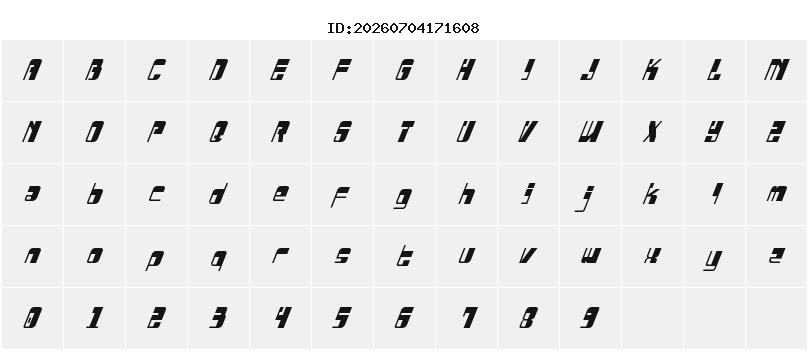
• Font Name: Drosselmeyer Condensed Italic
• Font Style: Condensed Italic
• Full Font Name: Drosselmeyer Condensed Italic
About Drosselmeyer Condensed Italic.ttf
Drosselmeyer Condensed Italic.ttf is a modern, elegant sans-serif font designed for ultimate readability and visual harmony. Perfect for branding, headlines, web design, and print materials.